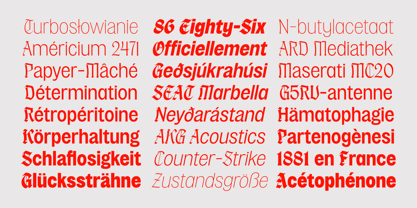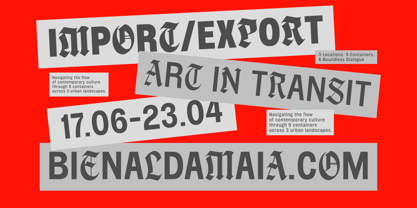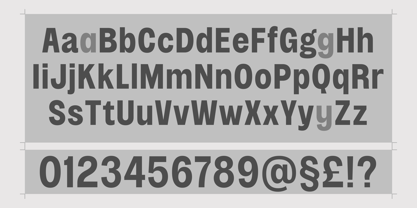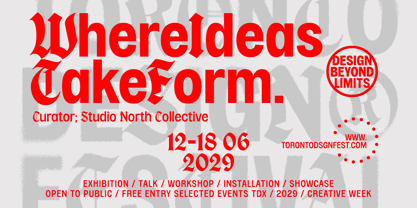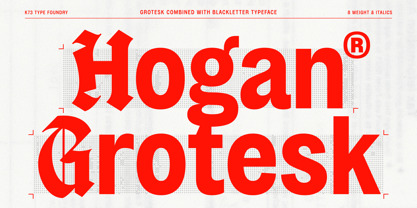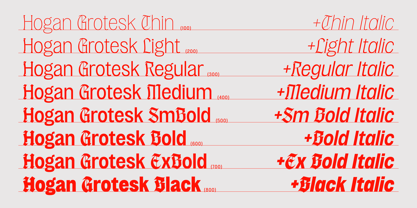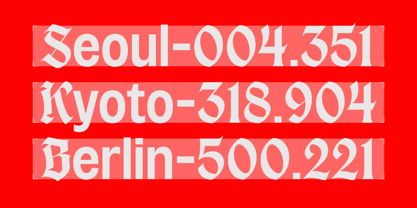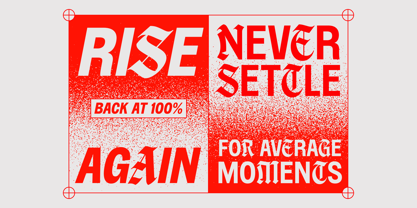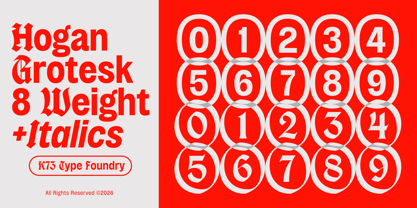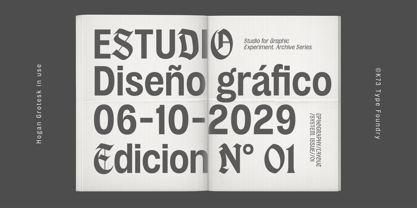
K73 Hogan Grotesk
by K73 Type Foundry
The K73 Hogan Grotesk Font Family was designed by Bagas Ferdiansah and published by K73 Type Foundry. K73 Hogan Grotesk contains 17 styles and family package options. More about this family
K73 Hogan Grotesk is a contemporary grotesk typeface that fuses the structural clarity of sans serif with the expressive intensity of blackletter. Designed as a hybrid system, it balances modernist precision with ornamental disruption resulting in a voice that feels both controlled and rebellious. Built with a complete 8-weight range (Thin to Black) alongside matching italics, it adapts effortlessly from subtle editorial use to bold, high impact display, maintaining a consistent rhythm across every weight.
At its core, Hogan Grotesk operates as a responsive type system. Through contextual alternates, letterforms shift automatically as they are typed, creating a fluid and evolving flow that merges grotesk stability with blackletter inspired motion. Brutal, edgy, and expressive, it challenges the neutrality of traditional grotesks while remaining highly functional. The addition of a variable font further enhances its flexibility, offering designers precise control to craft dynamic, contemporary typographic compositions.